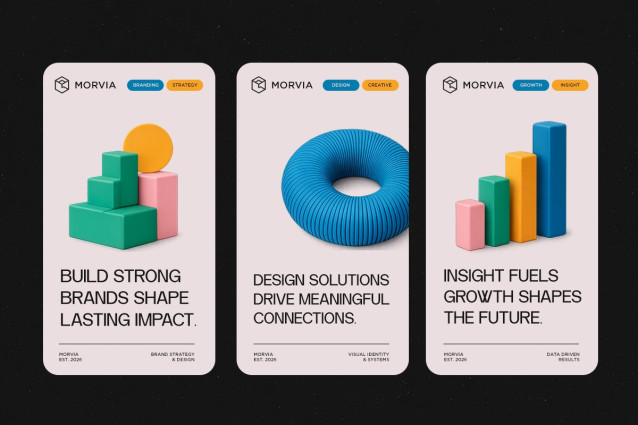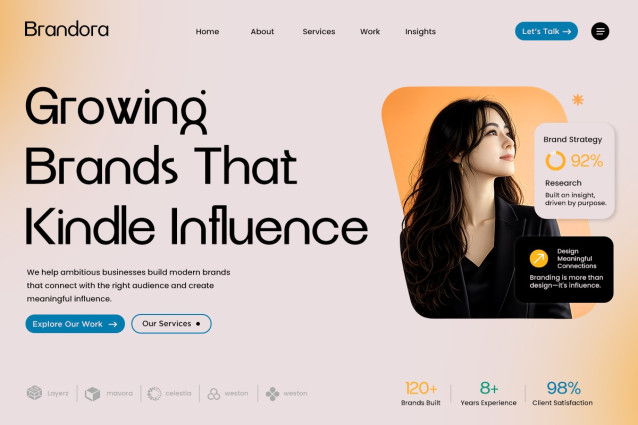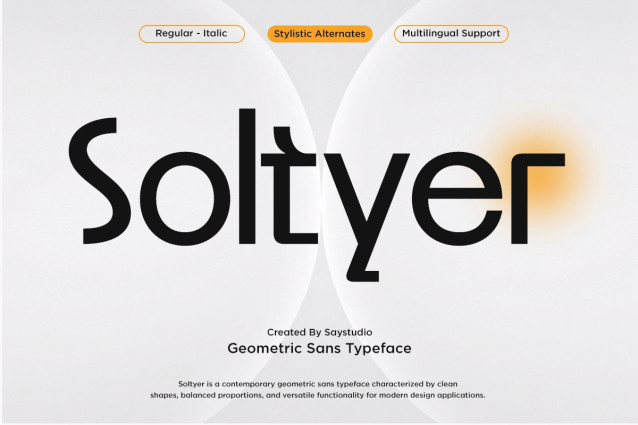
Soltyer – Modern Geometric Sans Serif Font
Soltyer is a modern geometric sans typeface crafted to bring clarity, precision, and contemporary elegance to every design. Built with balanced proportions, clean curves, and confident letterforms, it delivers a refined visual identity that performs beautifully across both digital and print media. Whether you’re designing for brands, technology, fashion, or editorial projects, Soltyer offers a professional aesthetic that feels timeless and versatile.